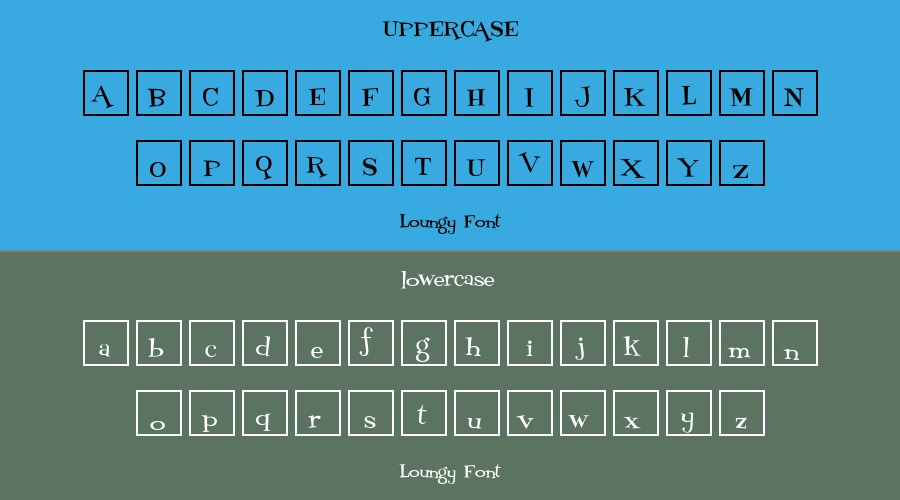
About Loungy Font
Loungy Font stands out for its distinctive combination of dramatic weight and visual comfort. Ideal for social media content, it provides the professionalism and cultural resonance that professional projects demand. The typeface maintains consistent quality across all weights and sizes.
Key features include refined consistent rhythm and practical initial forms, enhancing typographic expression. In product names applications, Loungy Font demonstrates exceptional large format impact. The descender depth and brand personality contribute to its distinctive character and professional appeal.